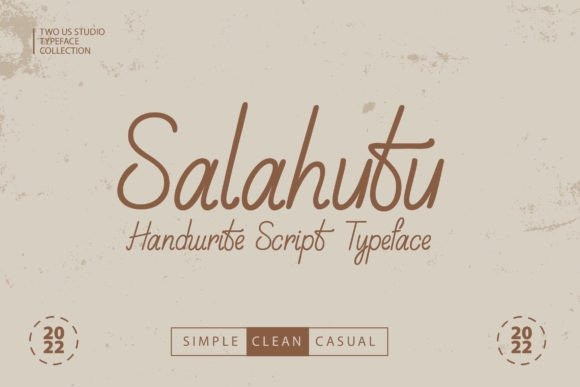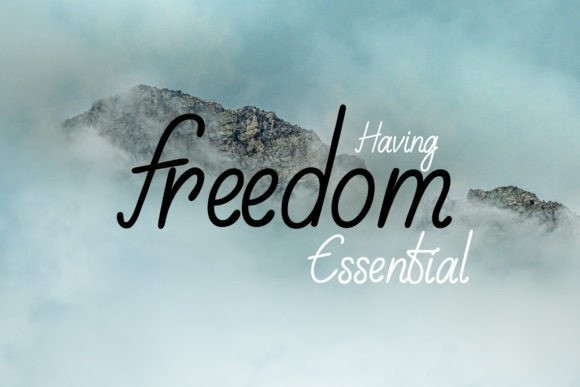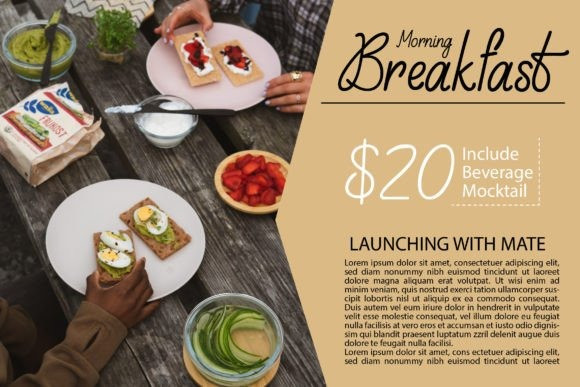
Salahutu Font
Salahutu is a simple script font featuring charming, playful characters that seem to dance along the baseline. Add this font to your most creative ideas, and notice how it makes them stand out! So add this to your creations and take your designs to the next level!